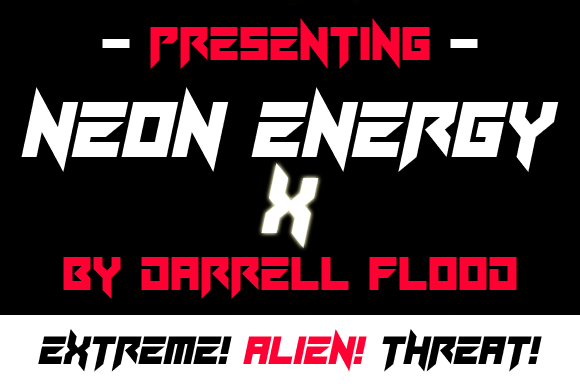
Introduction to Neon Energy X Font
Have you ever stared at a blank canvas, trying to conjure up the perfect font to match your creative vision? That’s exactly what happened to me when I stumbled upon the Neon Energy X Font – a razor sharp sci-fi font that radiates energy and style.
This high-tech, angular font is the perfect match for any high-impact project, from futuristic presentations to modern music titles and alien-themed artwork. Its sleek design makes it an instant favorite among designers, and its versatility ensures it will elevate any creative project to the next level.
Key Features of Neon Energy X Font
- High-quality digital font with a unique, neon-inspired design.
- Designed to be versatile, making it an ideal design resource for creative projects.
- Features a transparent background, allowing for seamless integration with any design.
- Perfect for use in graphic design, digital art, and other creative applications.
- Unique characteristics include a bold, eye-catching aesthetic and a range of customizable color options.
Honest Review: Neon Energy X Font
As a designer, I’ve had the opportunity to work with numerous fonts, but the Neon Energy X Font has caught my attention for its unique aesthetic. I downloaded the font for free, and I was impressed by its high quality. The transparent background makes it perfect for creative projects where I need to add a pop of color.
- ✨ Unique design that adds a futuristic touch to any project
- ✨ High quality and clear typography
- ✨ Transparent background for easy layering
- ⚠️ Limited character set, which may not be suitable for extensive text-based projects
- ⚠️ Not ideal for projects that require a lot of subtlety, as the font can be quite bold
Overall, I’m impressed with the Neon Energy X Font’s potential for creative projects. Its unique design and high quality make it a valuable addition to any designer’s toolkit. While it may not be suitable for every project, it’s definitely worth considering for designs that require a bold, eye-catching font.